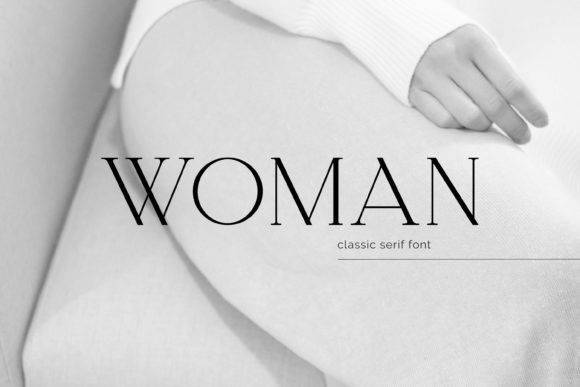
Introducing Woman Font, the ultimate serif font designed specifically for your clothing website! Crafted by the incredibly talented elvinova, this font is the epitome of elegance and sophistication. With its delicate and classy appearance, Woman Font is sure to captivate your audience and elevate your website's aesthetic to new heights.
What sets Woman Font apart is its perfect balance between thinness and thickness. It strikes the ideal harmony, creating a visually pleasing experience for your users. Each character is meticulously crafted, ensuring a varied and captivating display that will leave a lasting impression on anyone who visits your site.
When it comes to marketing your clothing collection, Woman Font is an invaluable asset. Its versatility allows it to seamlessly blend with any fashion style or brand image, making it the perfect choice for both high-end luxury labels and trendy streetwear boutiques. It effortlessly adapts to your unique vision, enhancing the beauty of your projects and adding a touch of sophistication.
But Woman Font is not just visually stunning; it also conveys a powerful emotional message. With every letter, it exudes confidence, elegance, and femininity. Its timeless design will resonate with your target audience, leaving them with a strong desire to explore your collection further and make a purchase.
Imagine your clothing website adorned with Woman Font, instantly captivating your visitors and setting you apart from the competition. With its eye-catching appeal and captivating charm, this font is your secret weapon for success in the e-commerce world.
Don't settle for ordinary fonts that fail to make an impact. Choose Woman Font, the best font for your clothing website, and watch as it transforms your online presence into a visually stunning and emotionally compelling experience for your customers.